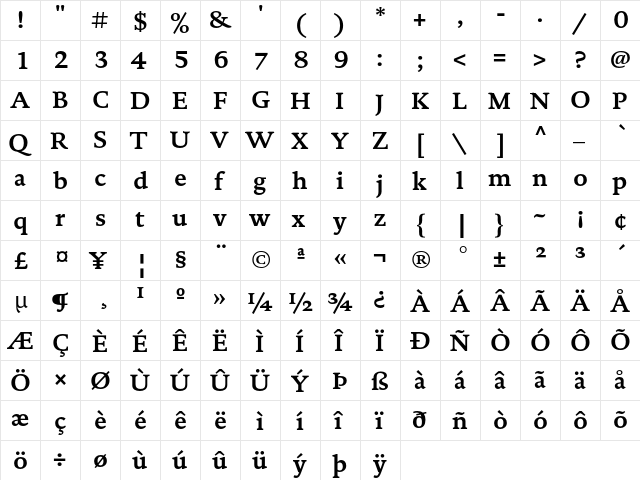
Documenta Dtl Bold Regular Font Preview
Documenta Dtl Bold Regular
Documenta Dtl Bold Regular Font Details
Design Context for Documenta Dtl Bold Typeface
Documenta Dtl Bold takes a measured approach to typography — its balanced proportions and neutral character make it a reliable workhorse for both digital and print work. Its bold stroke weight gives it real presence on the page.